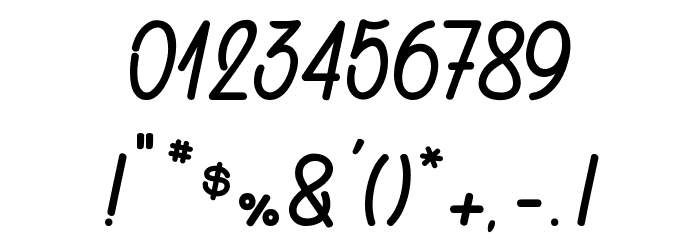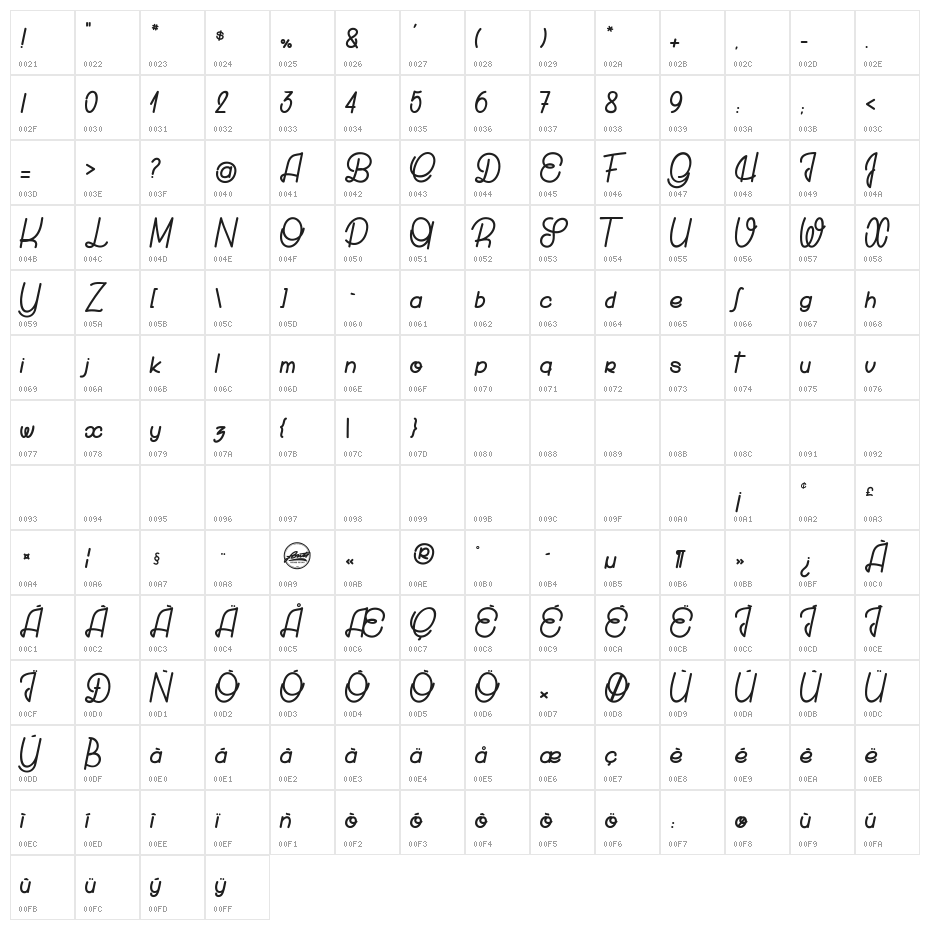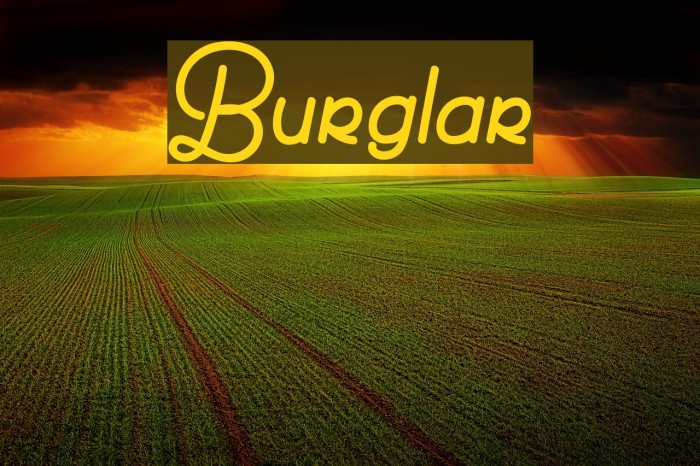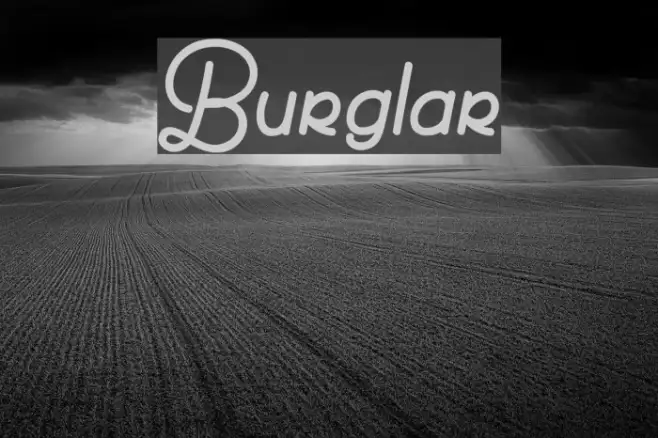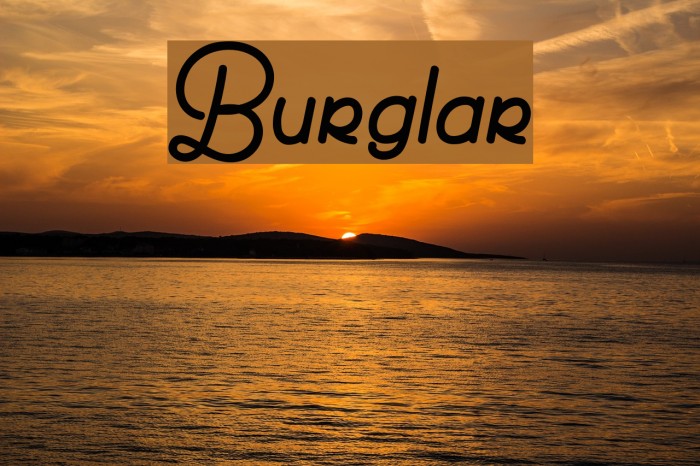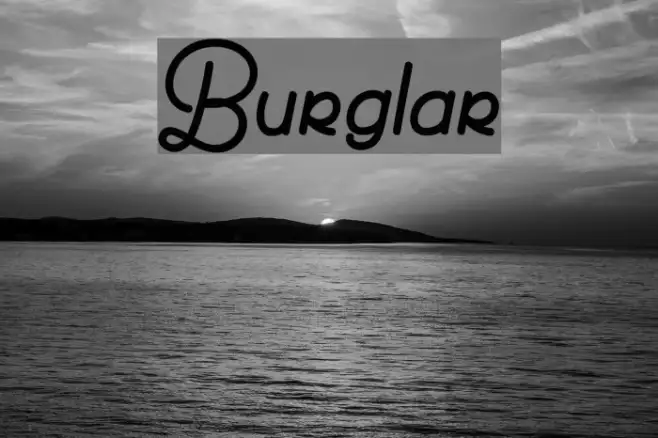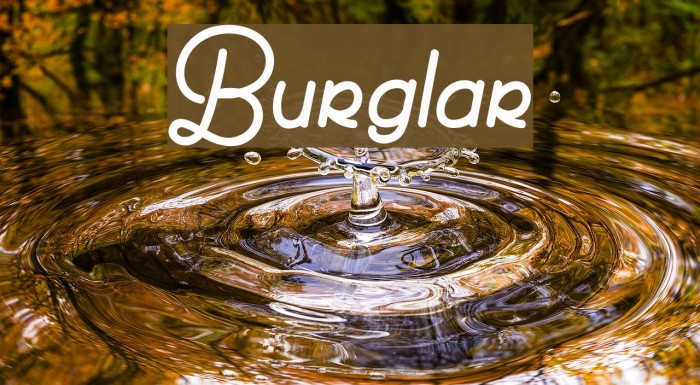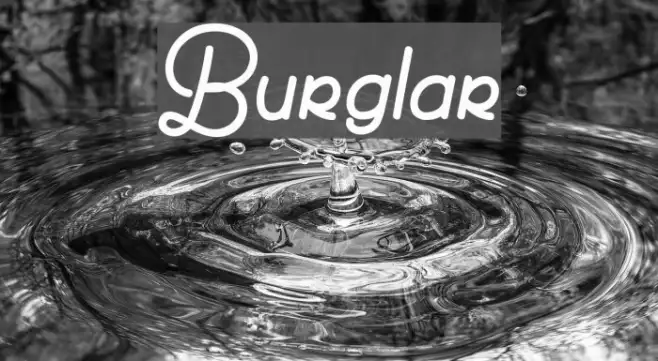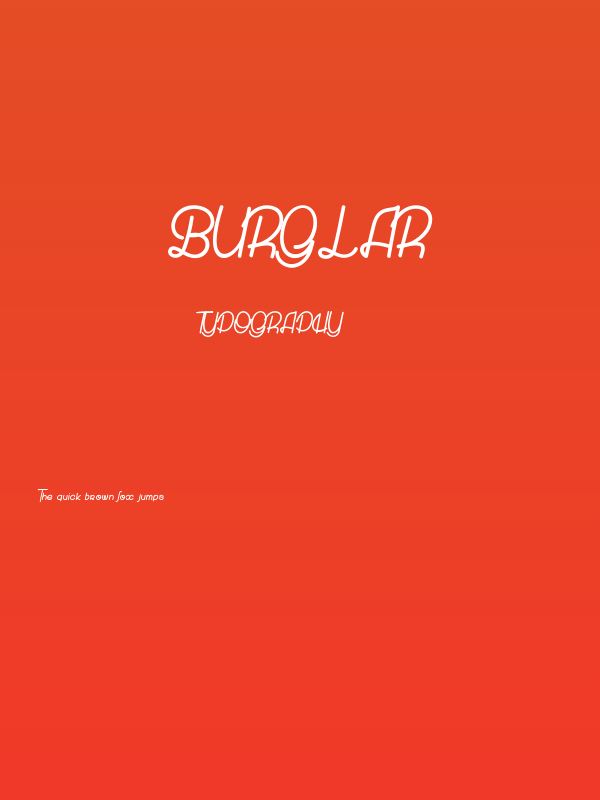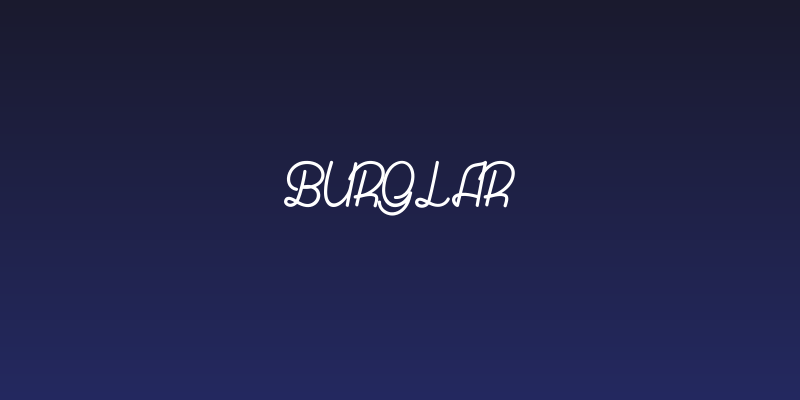
Burglar Font
This font features a playful and casual script style with a handwritten appearance. The letters are slightly slanted, giving it a dynamic and informal look. The strokes are smooth and rounded, with a consistent flow that mimics natural handwriting. The uppercase letters are bold and prominent, while the lowercase letters maintain a friendly and approachable feel. Numbers and special characters are designed to match the overall style, ensuring a cohesive appearance across all text elements.
A playful, handwritten script font with smooth, rounded strokes.
• Proposed Projects: Ideal for greeting cards, invitations, personal branding, and playful logos.